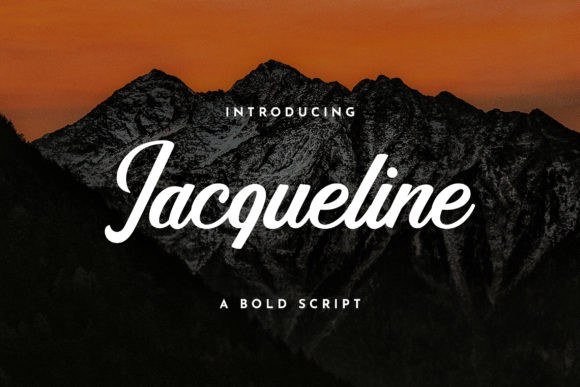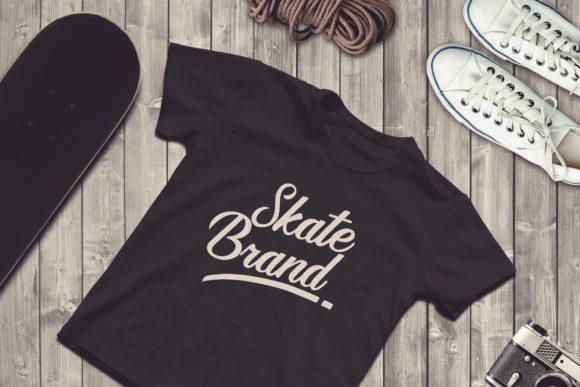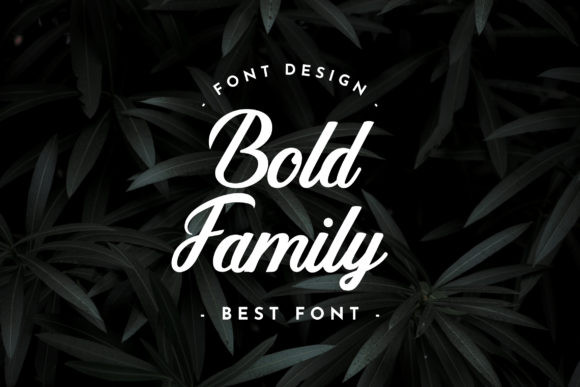
Jaqueline Font
Jaqueline is a bold and cursive paint brushed script font. It can be used for various purposes such as logos, wedding invitations, headings, t-shirts, letterhead, signage, labels, news, posters, badges and so much more.